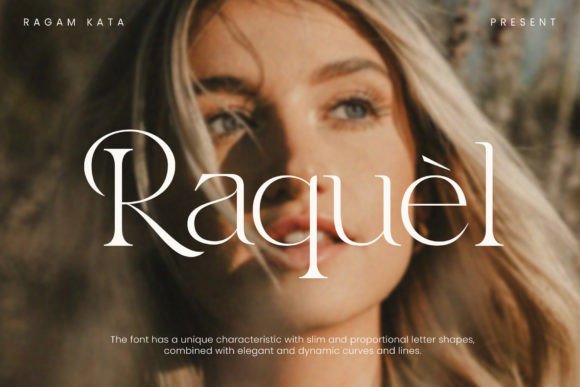
Step into a world of refined typography, where elegance meets sophistication in a dance of thin strokes and graceful swashes. Introducing the Raquel Font, a modern serif masterpiece that will elevate your designs to new heights of beauty and creativity.
Raquel Font: The Epitome of Grace and Elegance
Imagine your designs adorned with the charm of Raquel's delicate strokes, each letter crafted with precision to exude timeless allure. With its thin, elongated serifs, Raquel brings a sense of lightness and airiness to your creations, making them appear as if they're floating on the page.
Unleash Your Creativity with Endless Possibilities
Raquel is more than just a font; it's an open invitation to explore the vast realms of your imagination. Whether you're designing logos, crafting invitations, or creating stunning book layouts, Raquel's versatility knows no bounds. Its multilingual support and comprehensive punctuation marks make it adaptable to a plethora of design projects, ensuring seamless integration into your creative vision.
Make a Statement with Artistic Swashes
Prepare to be mesmerized by Raquel's captivating swashes, adorning selected uppercase letters with an artistic flair that demands attention. These swashes add a touch of whimsy and personality to your designs, making them stand out from the mundane and ordinary.
Experience the Joy of Seamless Use
Elevate Your Designs with Raquel Font